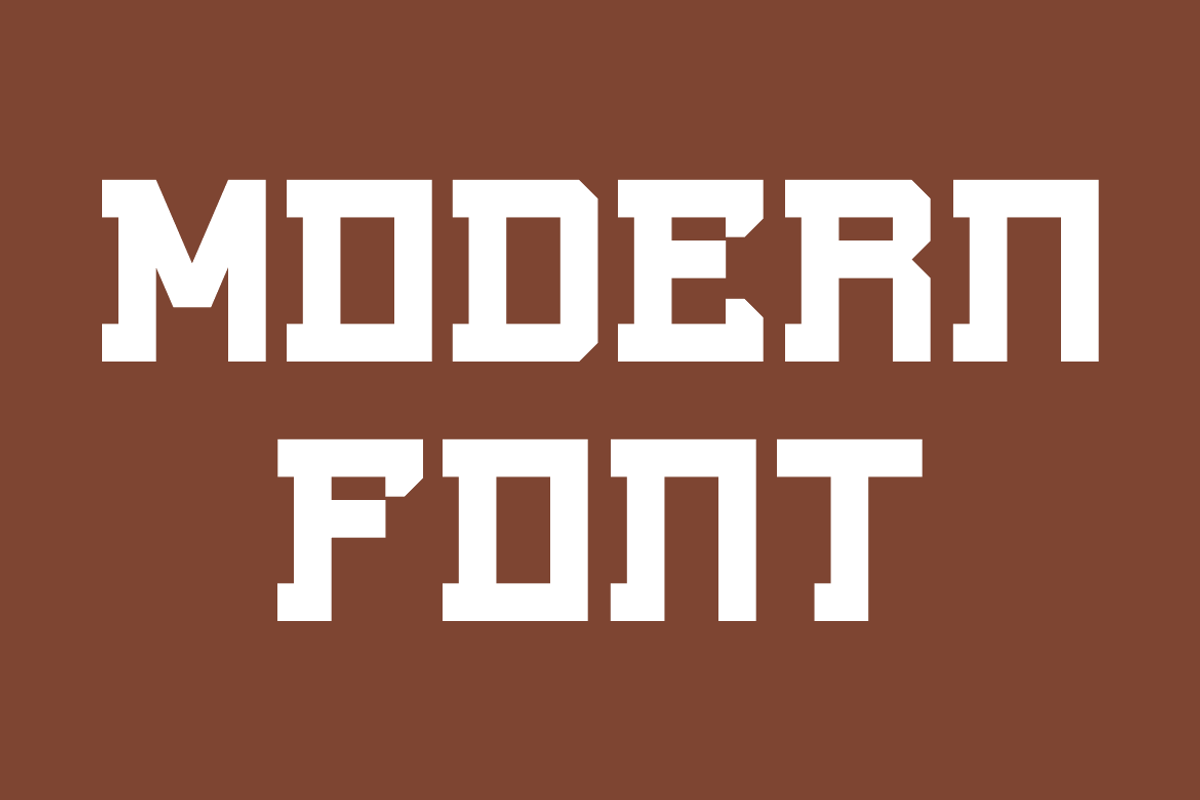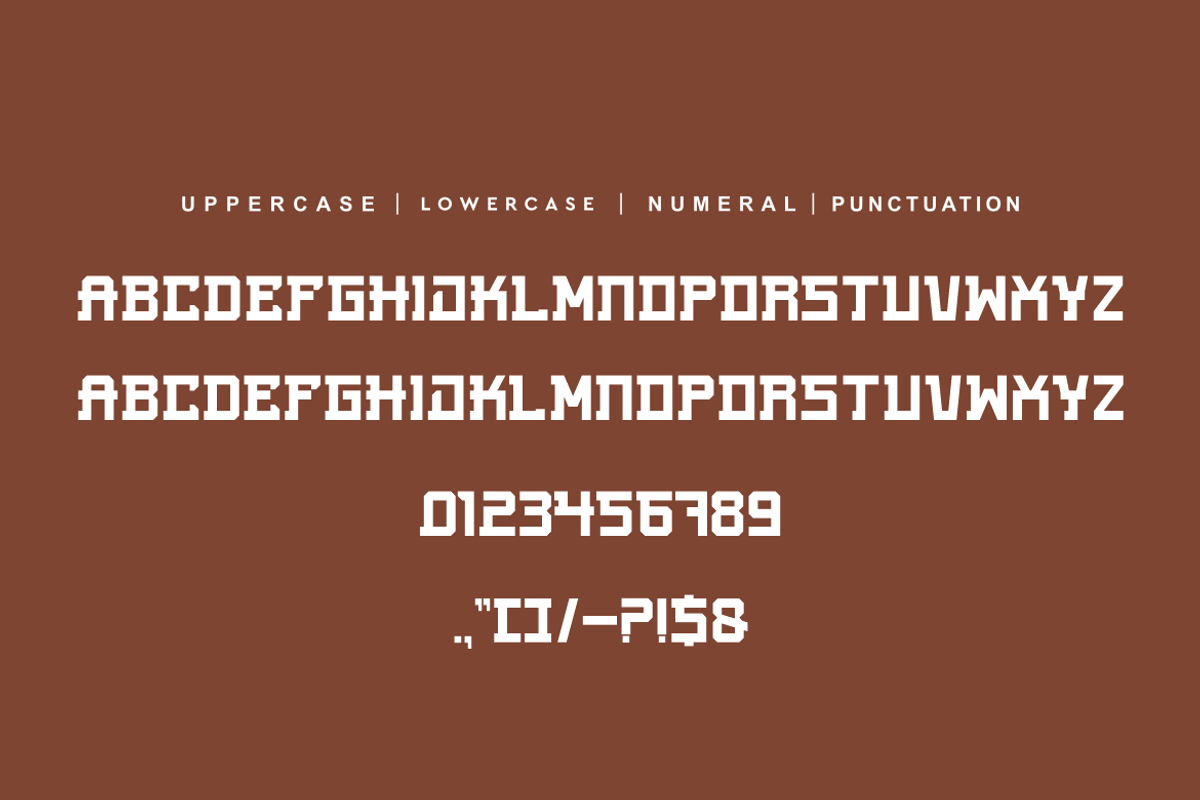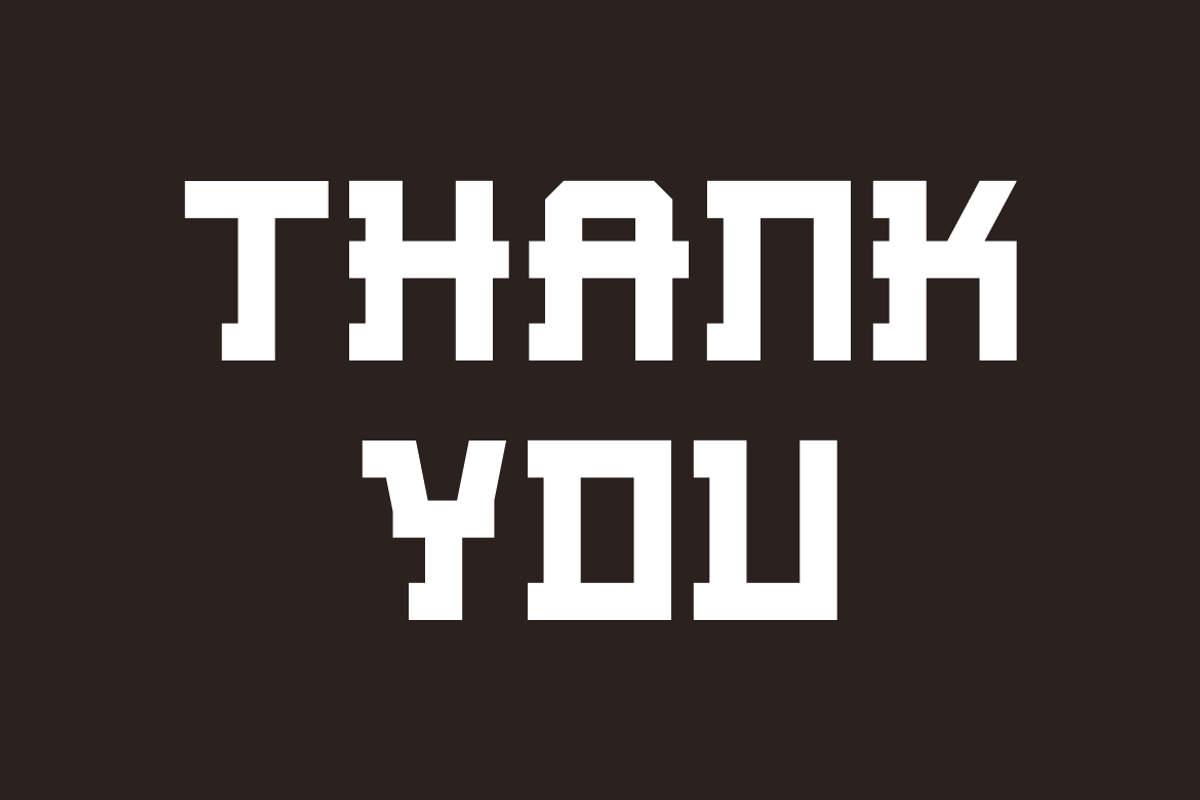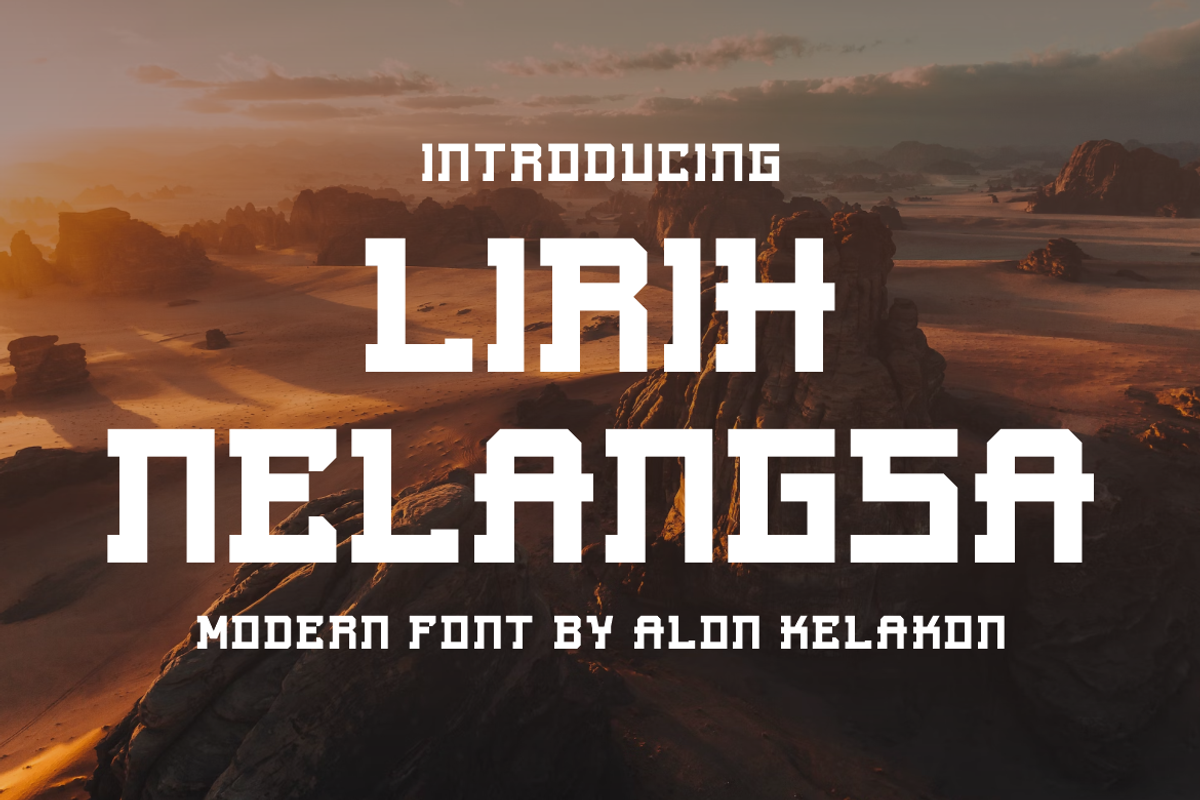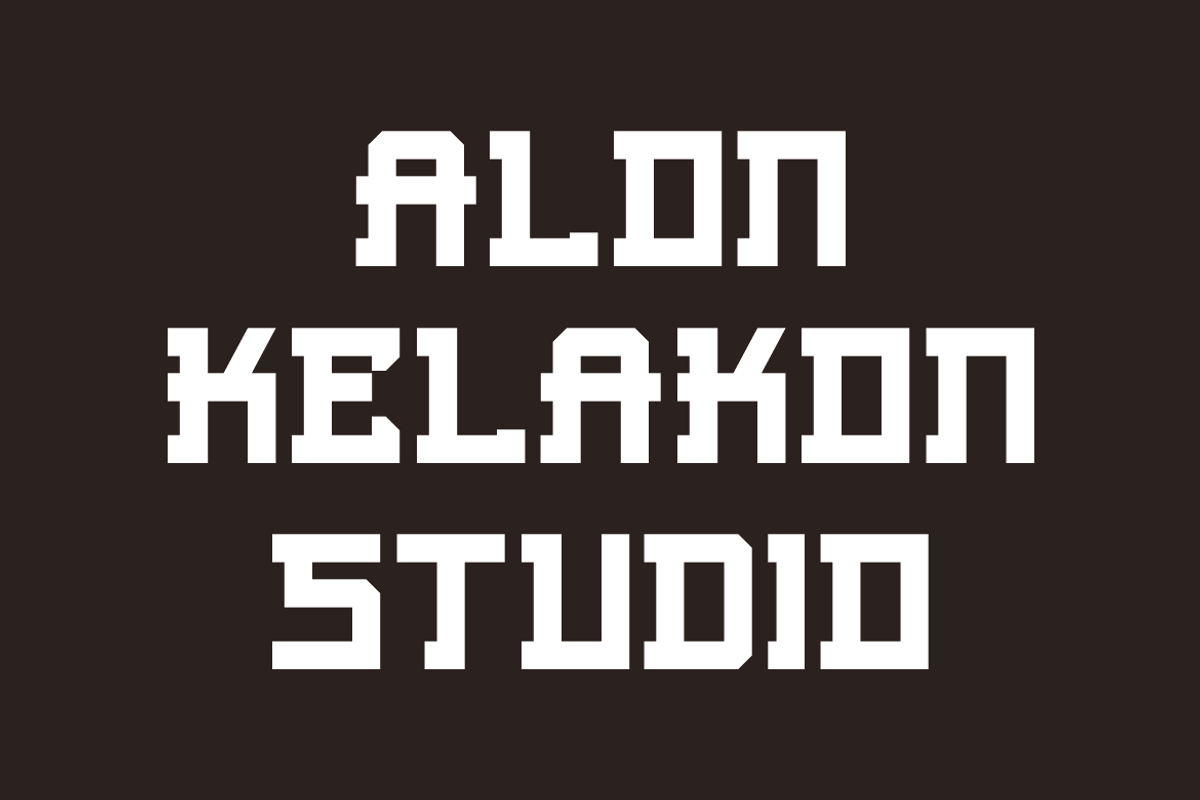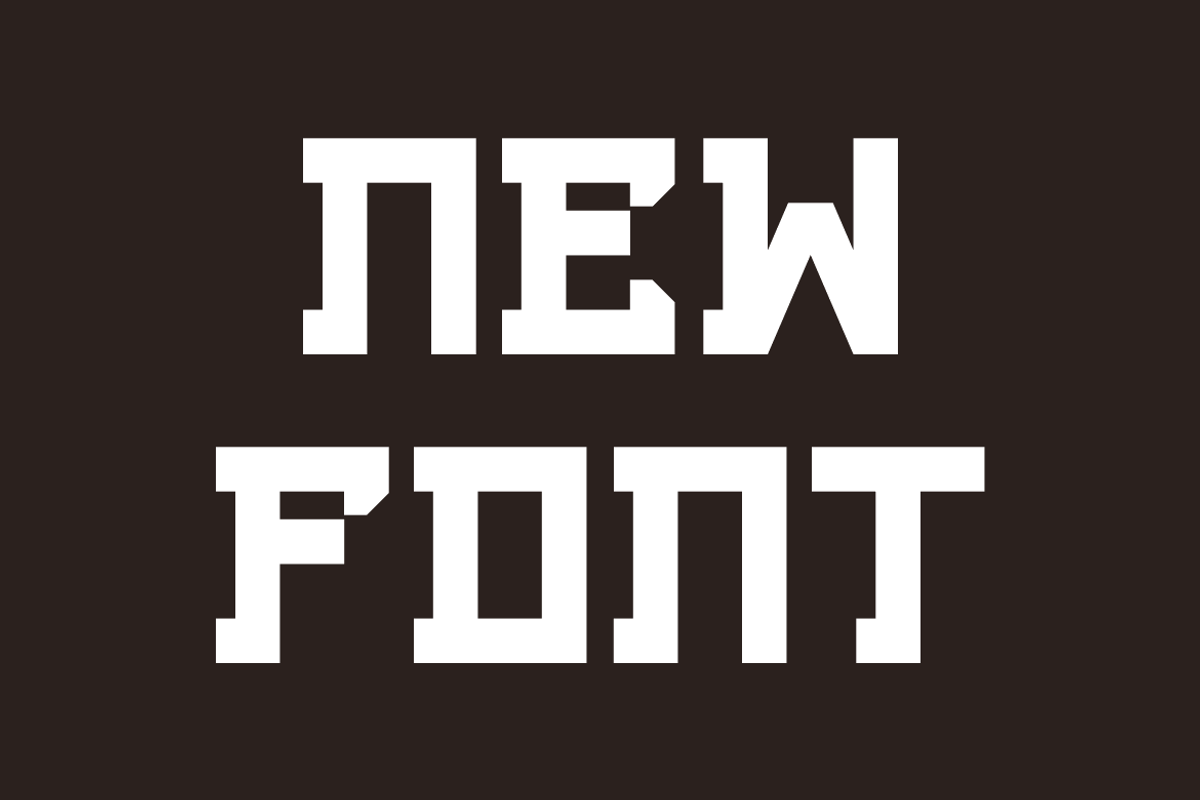
Lirih Nelangsa
Lirih Nelangsa Font is unique . Ready to use for your design like labeling, movie sceen, poster, movie title, gigs, album covers, logos, and much more.